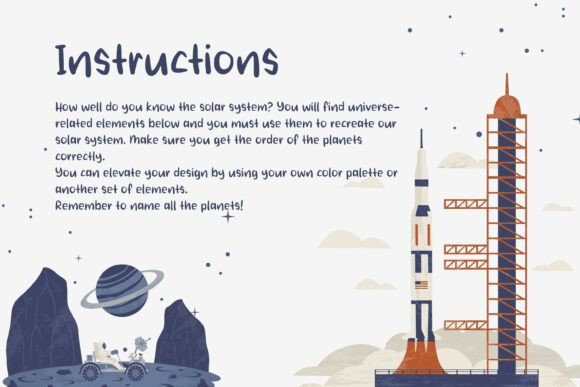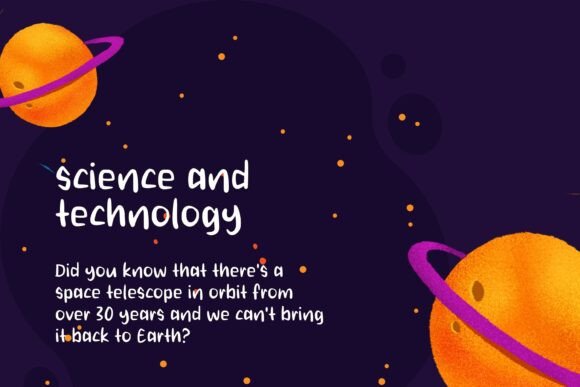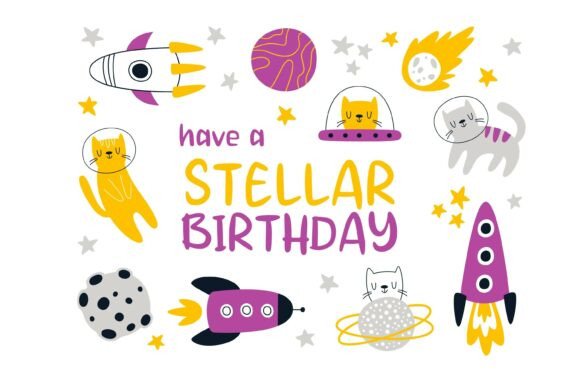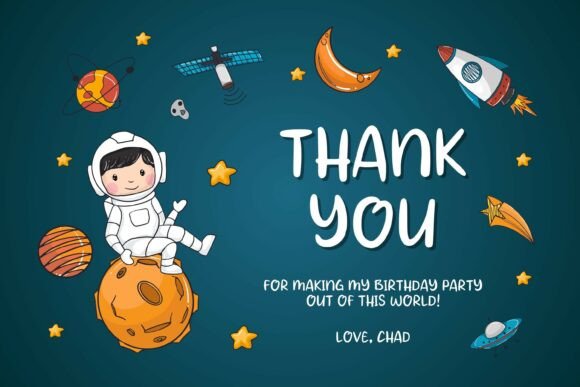
Introduction to Orbitraxy Font
Orbitraxy Font, with its distinctive design and character, serves as the perfect accompaniment to your outer space endeavours.
Whether itโs showcasing your captivating slideshows, crafting celestial birthday cards, or meticulously guiding your customers through product instructions, Orbitraxy is the key to adding that stellar touch Every line and curve in Orbitraxy echoes the mystique of the cosmos, transforming ordinary messages into interstellar communications.
Key Features of Orbitraxy Font